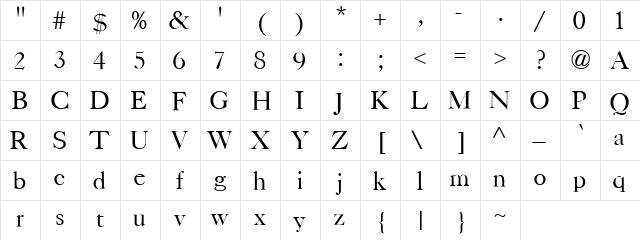
Patrician Regular
| Foundry | David F. Nalle - Scriptorium Font Library |
Design Context for Patrician Typeface
Patrician offers clean, dependable letterforms without strong stylistic allegiance, making it a practical choice for designers who need flexibility.